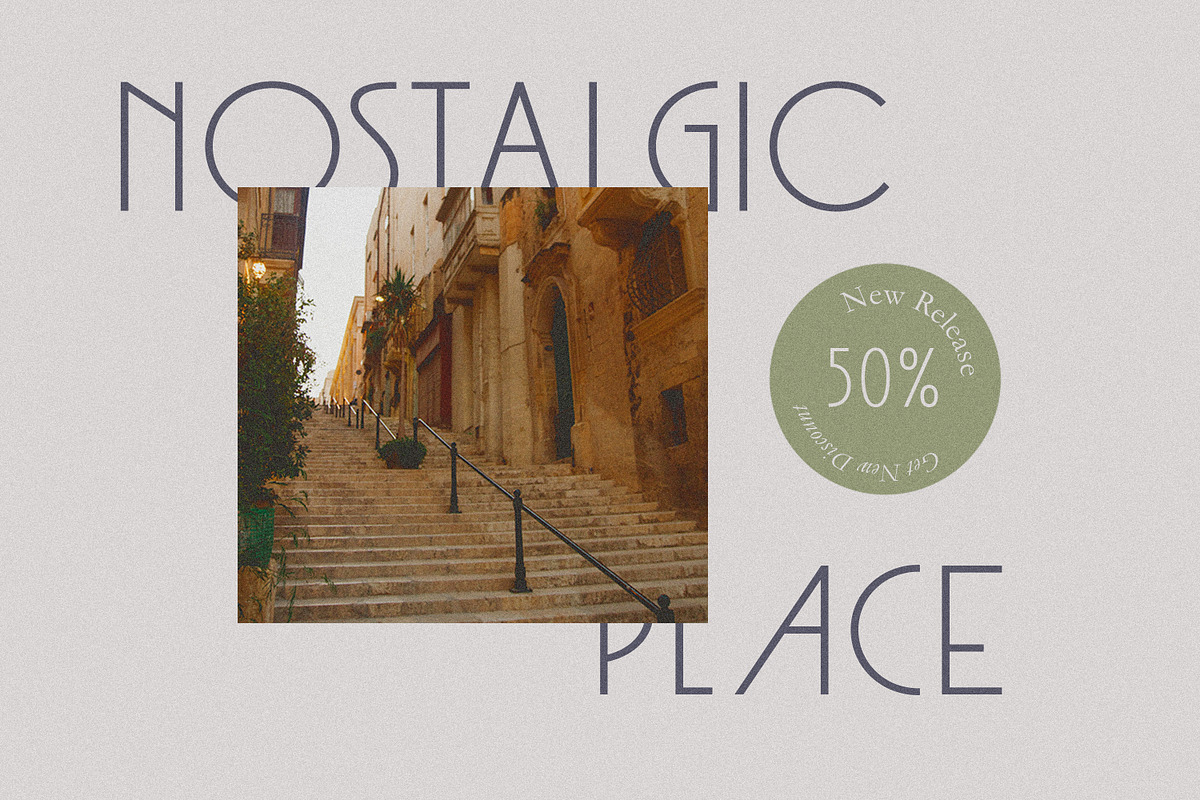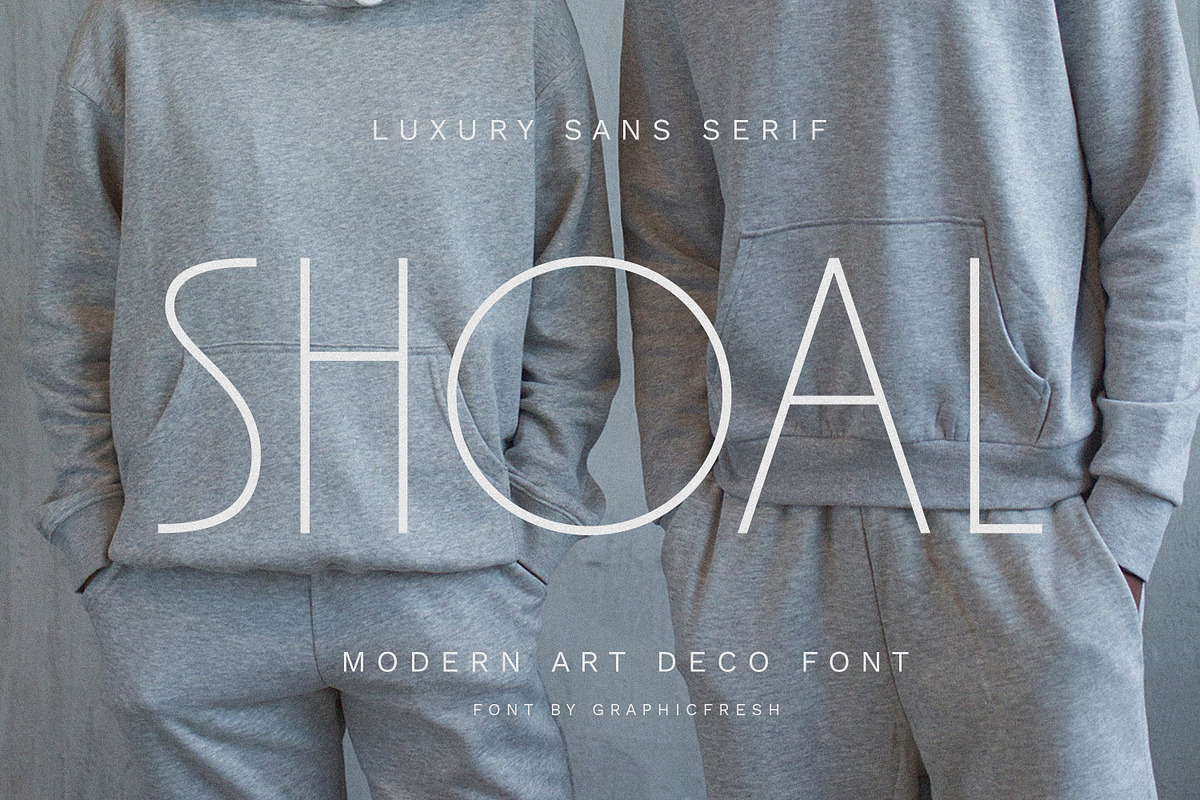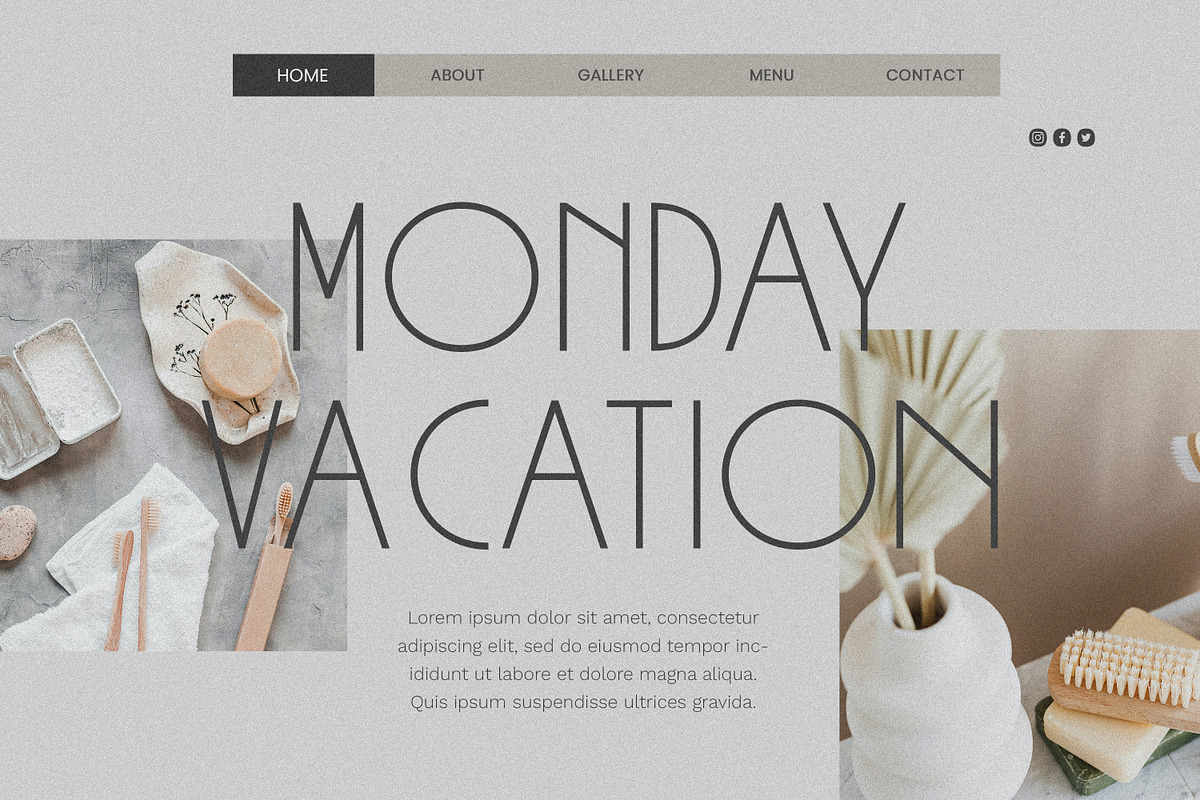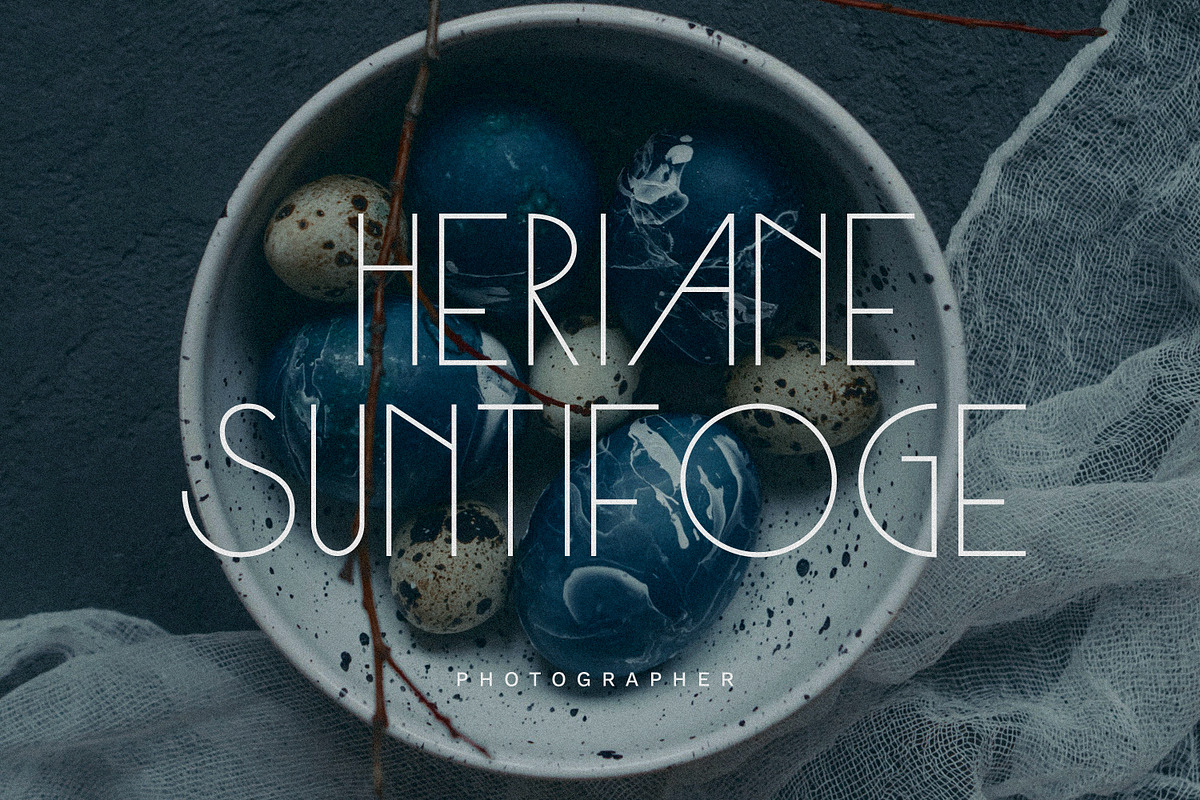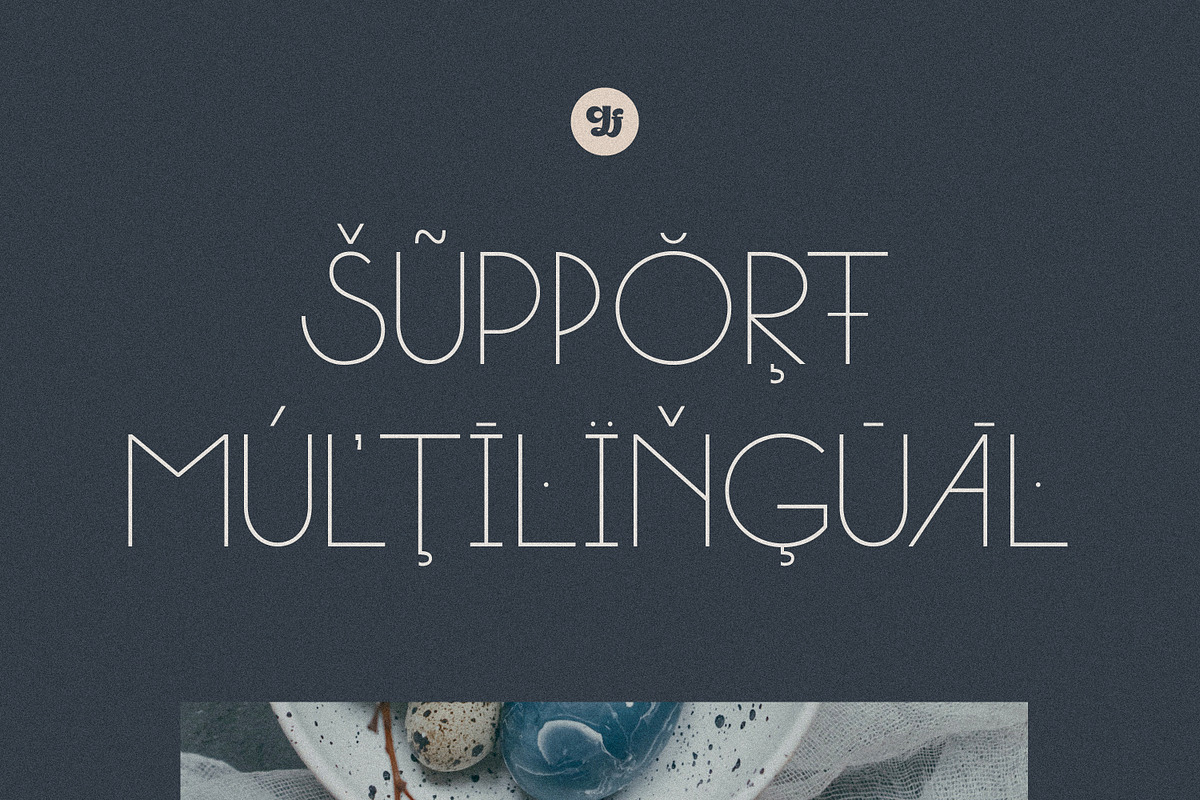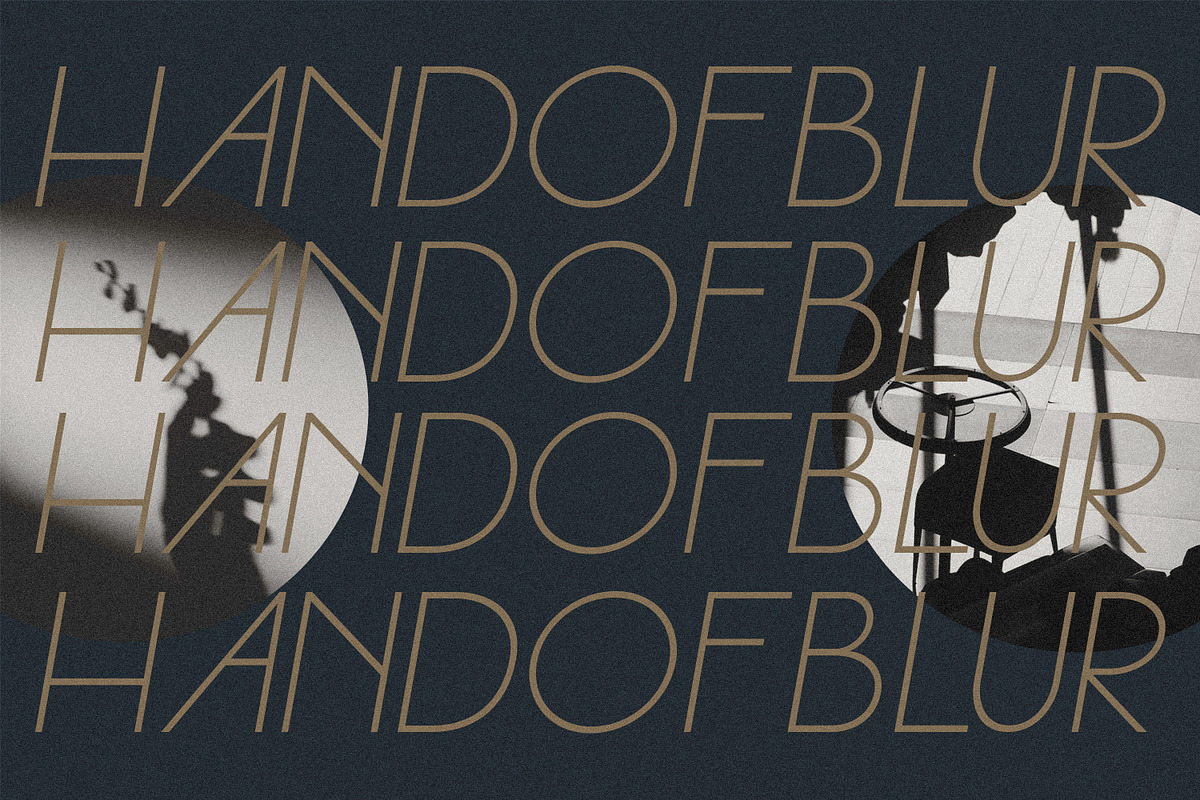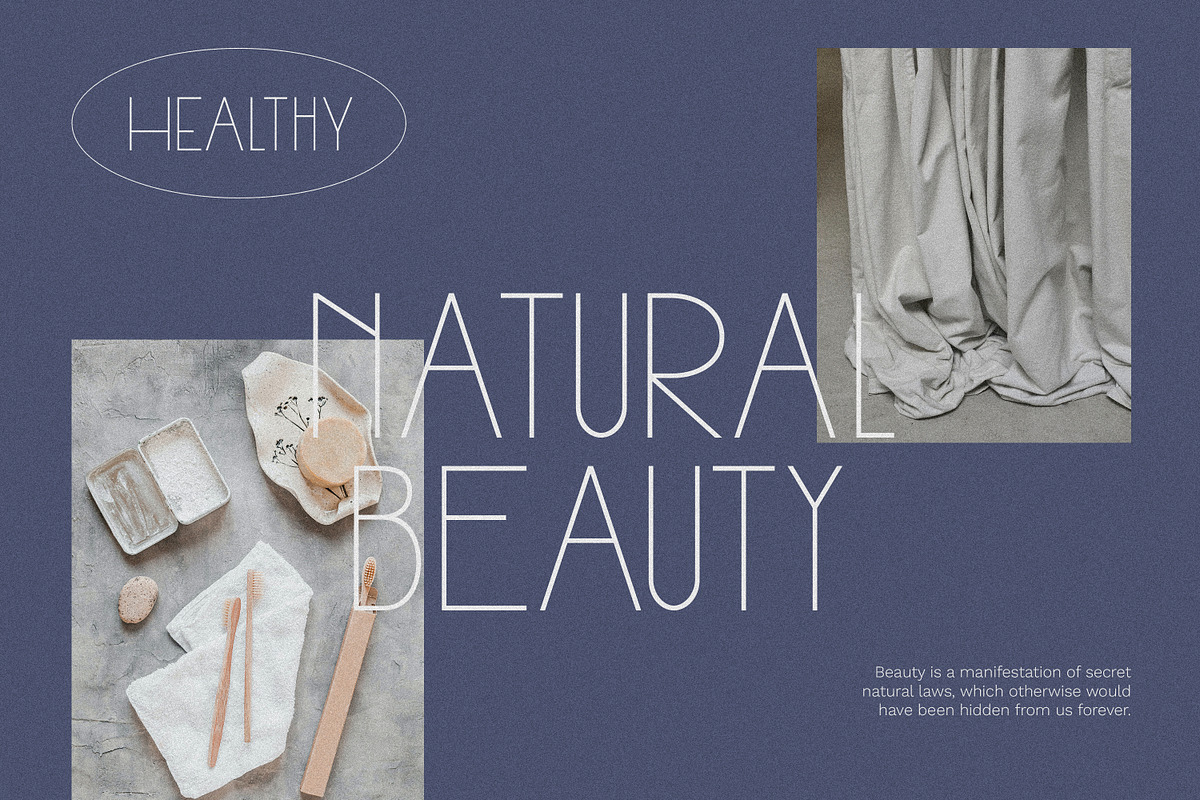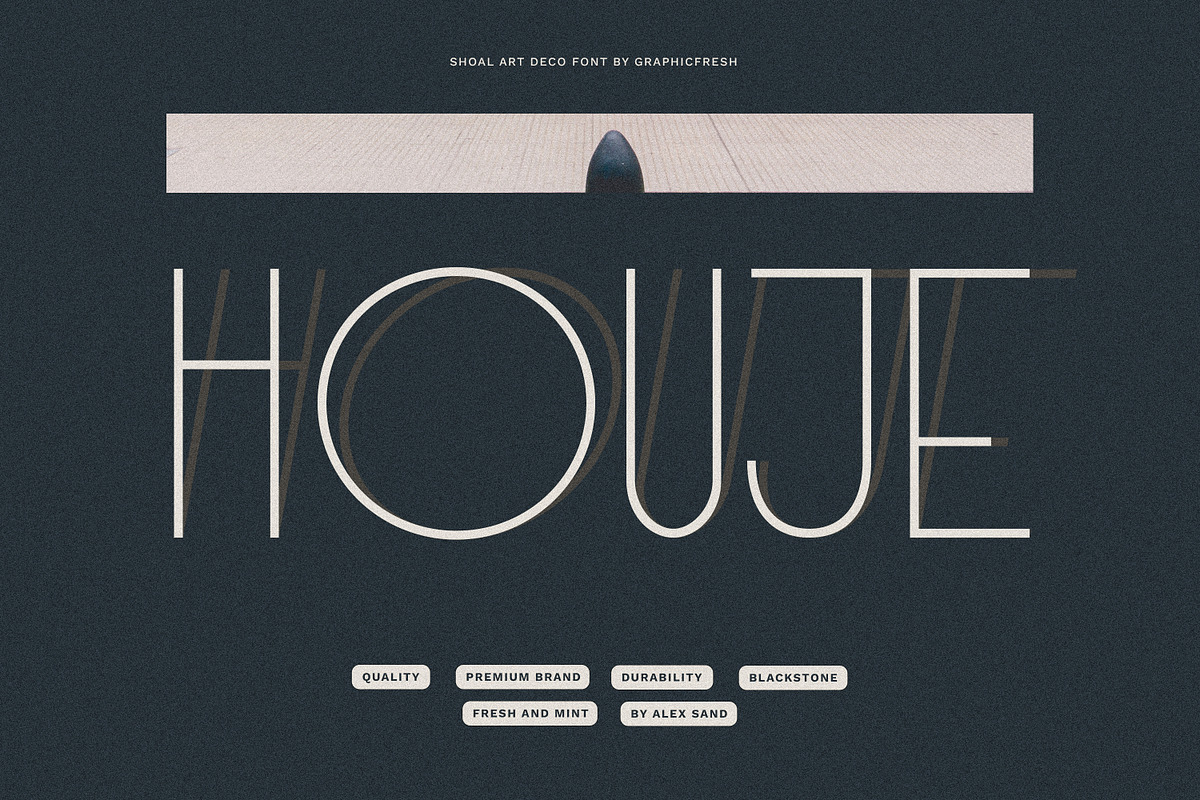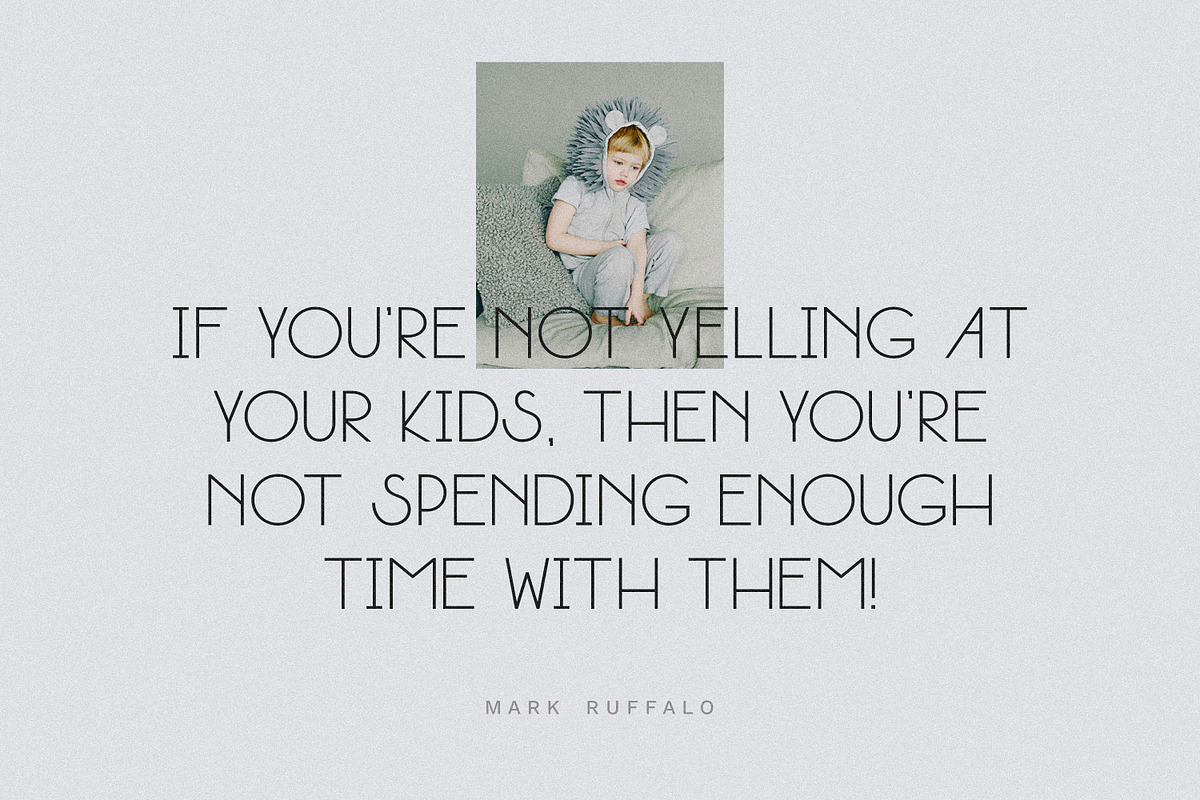
Shoal - Modern Art Deco Font
Adaptation to the 1920s design style which is synonymous with luxury and elegance. Its form is rigid, stratified, and stands out in the height of its character. This font was created to recognize the famous design style of the time. This font comes in 4 styles: Regular, Medium, Bold, and Oblique for every single weight.